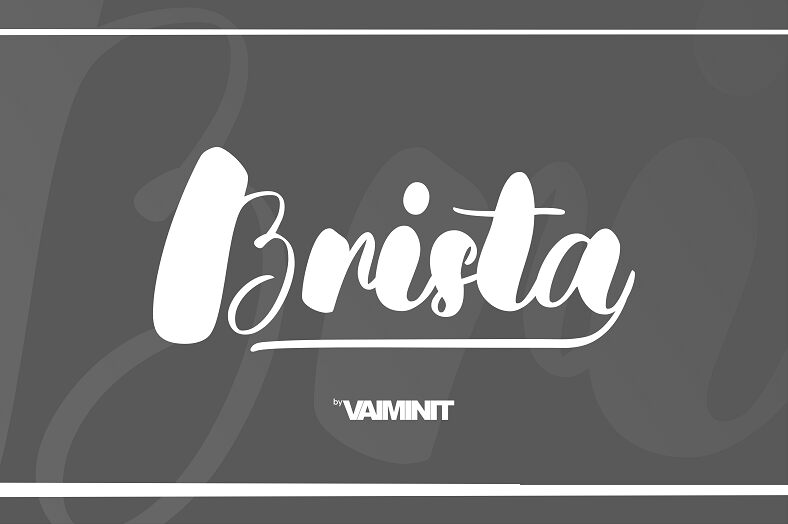
Brista, crafted by the talented Vaiminit, is an extra-bold brush font that dances with a unique blend of whimsy and elegance. Its handcrafted strokes are reminiscent of a skilled artist's brush, giving life to text with a personal touch that's both refreshing and endearing. This font's distinct personality makes it an ideal match for projects that demand a hint of sweetness-whether it’s the sophistication of wedding stationery or the joyous charm of personalized greeting cards.
With Brista, your creative endeavors will speak volumes in a voice that's as playful as it is polished. Embrace its versatility and let this font transform your designs into works of art that resonate with warmth and contemporary style. Unleash Brista’s potential to infuse your projects with an irresistible allure that captivates at first glance.